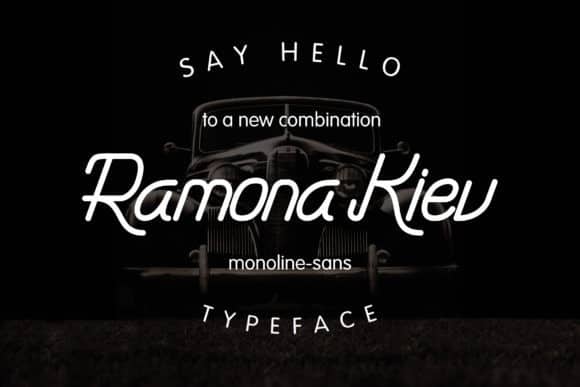
Ramona Kiev – Monoline Font
Introducing Ramona Kiev monoline sans handwritten font – a font that is very fresh and unique style handmade.
Ramona Kiev monoline sans handwritten font is perfectly suited to logo, tationery, poster, apparel, branding, wedding invitation, card, tagline, layout design, and much more !!